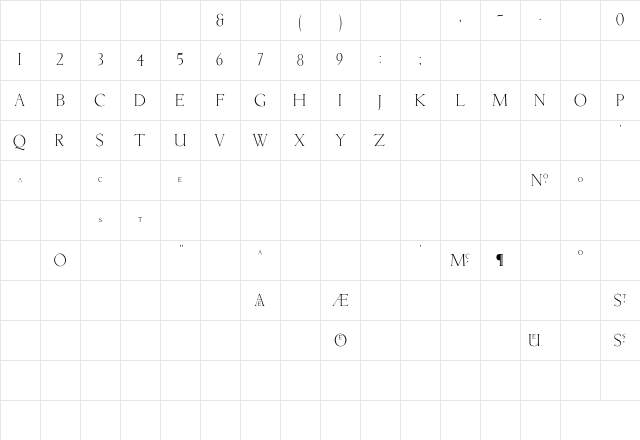
Newtunian Regular
Design Context for Newtunian
Newtunian is a composed and adaptable typeface that performs quietly and consistently across a wide range of design contexts.